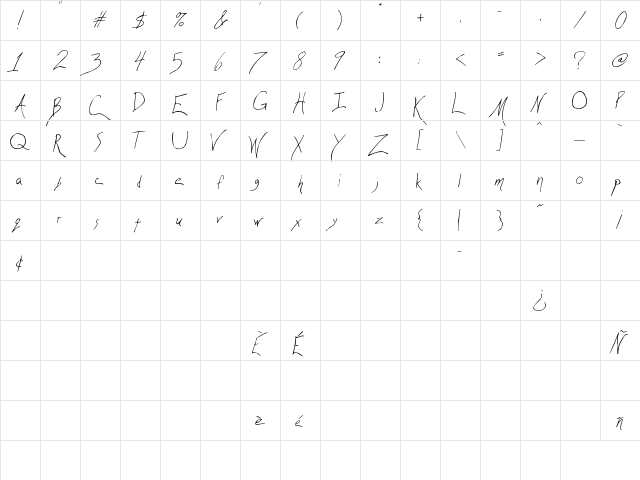
Wicca Script Regular
Wicca Script brings a calligraphic fluidity to the page — its connecting strokes and expressive curves give it an unmistakably human quality.